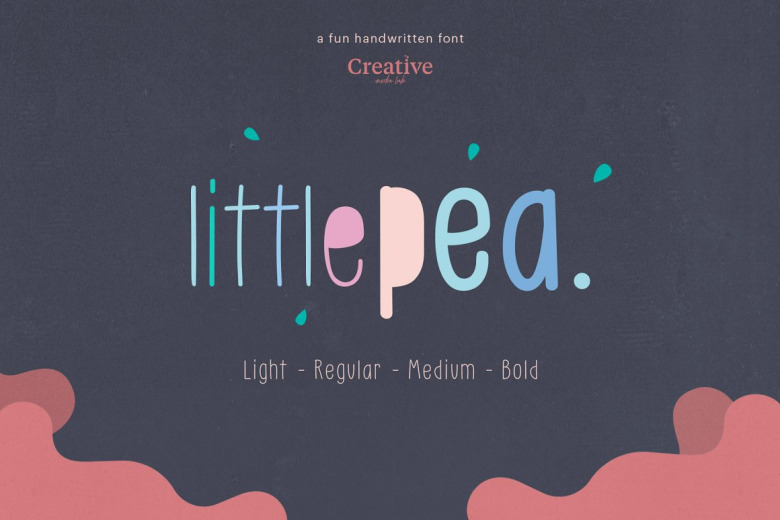
Little Pea Font
Little Pea Font is a cute little handwritten font that would be perfect for Comic, books, greeting cards, toys, posters, baby clothing, picture books or anything that requires a fun and happiness look!
Little Pea Handwritten Font